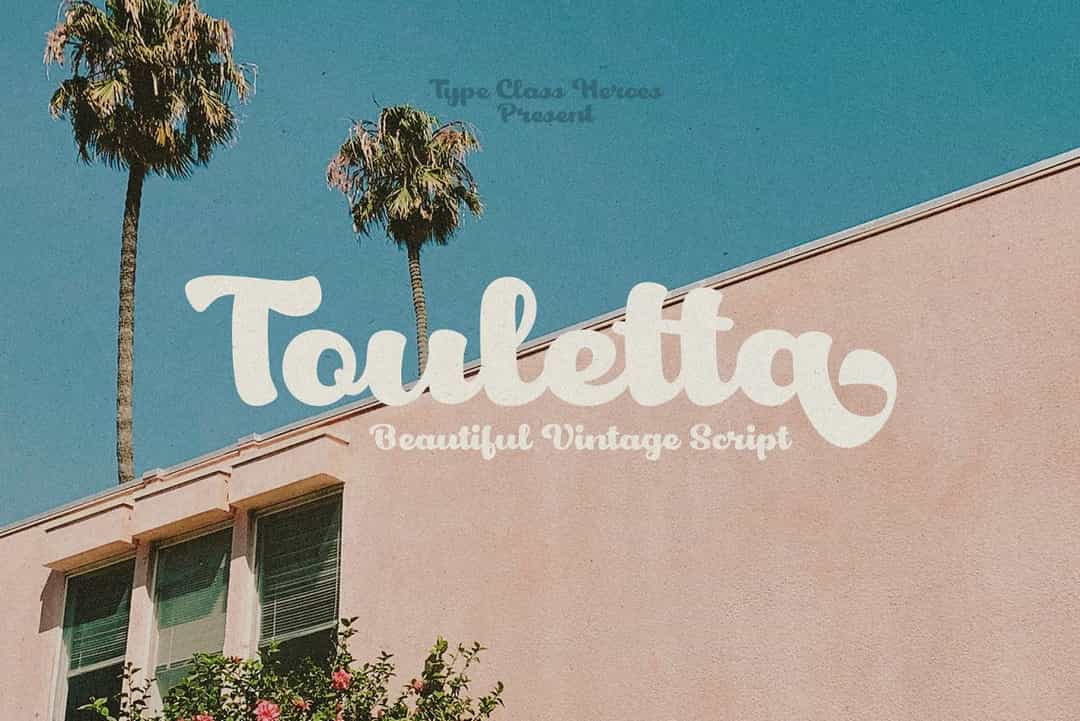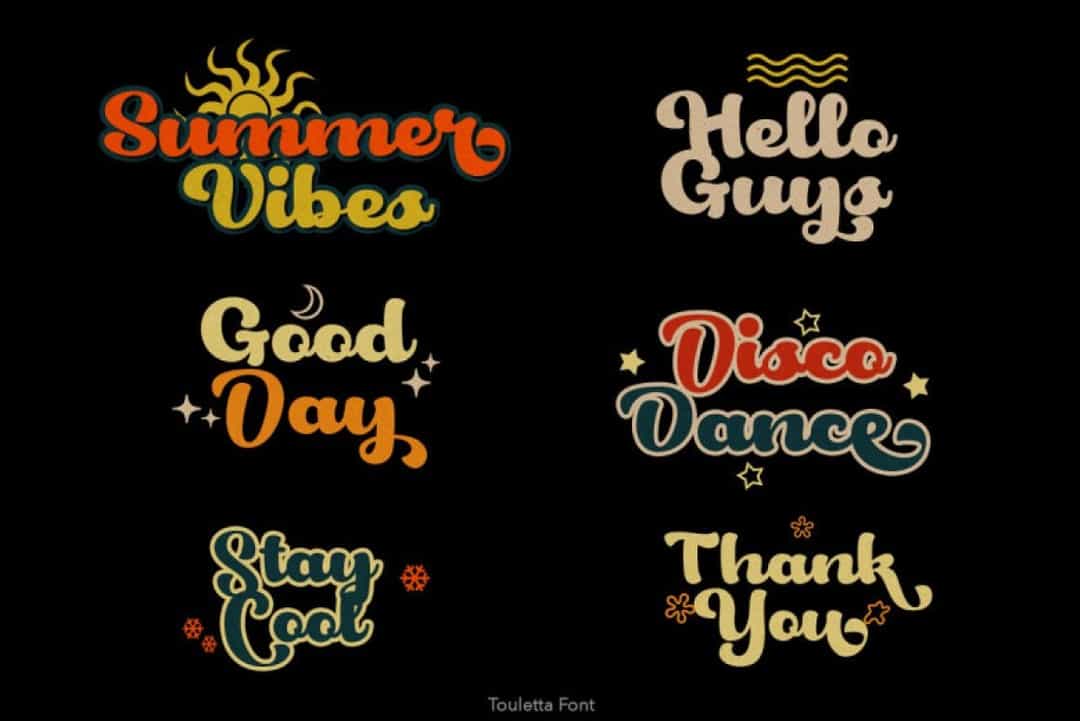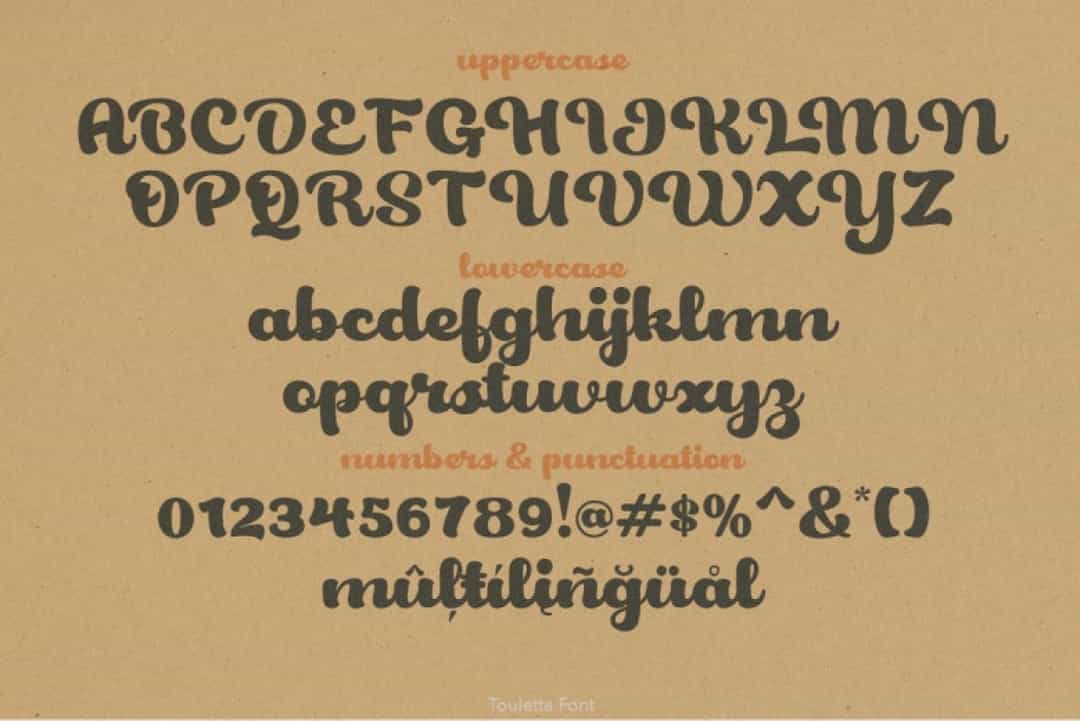
Touletta It is an impressive vintage retro script font from the 60’s. Modern and sophisticated, you can experiment with creating an ebb and flow that is comfortable to read – ideal for use on logotypes, stickers, greeting cards or wedding invitations as well as packaging designs, headlines and posters, T-shirt books magazines Instagram websites etc.